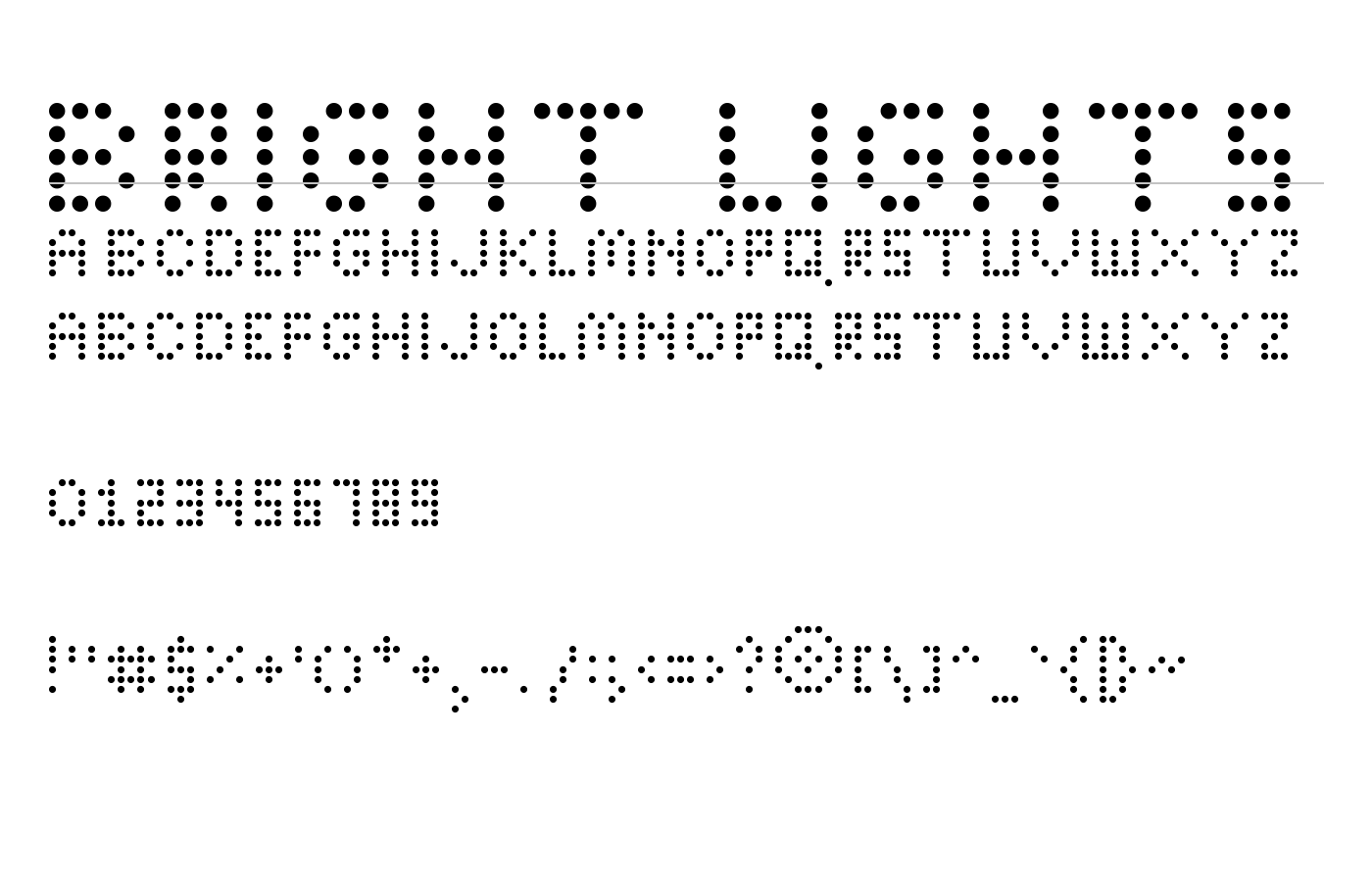
Bright Lights is a fun and modern sans serif display font crafted from small round dots, giving it a digital or marquee light effect. Its uniform stroke weight and open letterforms create a clean, geometric feel that works well for eye-catching headlines, signage, and playful branding. This font adds a bold, tech-inspired personality perfect for entertainment, events, or creative projects seeking a vibrant illuminated look.
Bright Lights Font
About Bright Lights Font